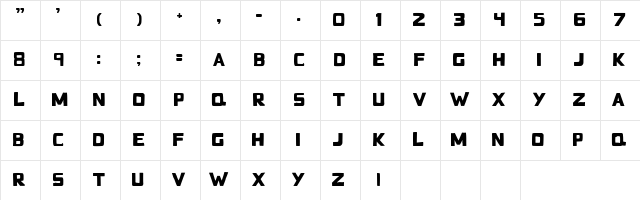
BadBlocks TT Regular
Design Context for BadBlocks TT
BadBlocks TT is a composed and adaptable typeface that performs quietly and consistently across a wide range of design contexts.